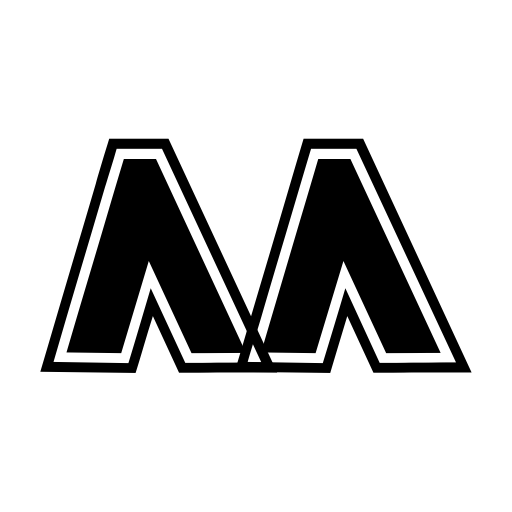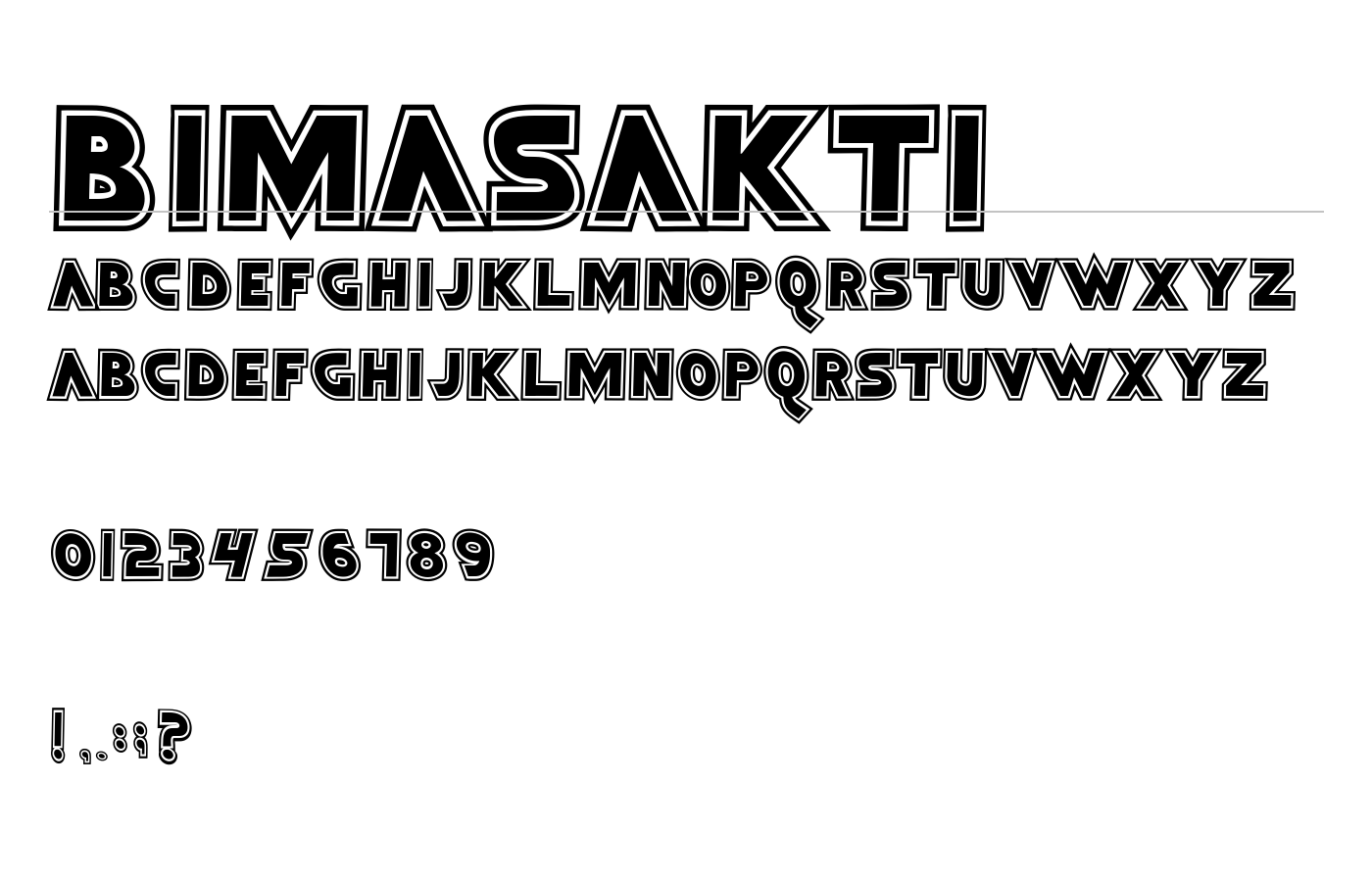
Bimasakti is a bold, condensed sans serif font with a playful and strong character, featuring thick solid fills with a double-line outline that adds a dynamic, graphic edge. Its uppercase-only style and geometric letterforms give it a modern, striking presence, perfect for eye-catching headlines, logos, and posters where impact and personality are key. This font works best in creative, energetic branding or display settings, communicating confidence and fun.
Bimasakti Font